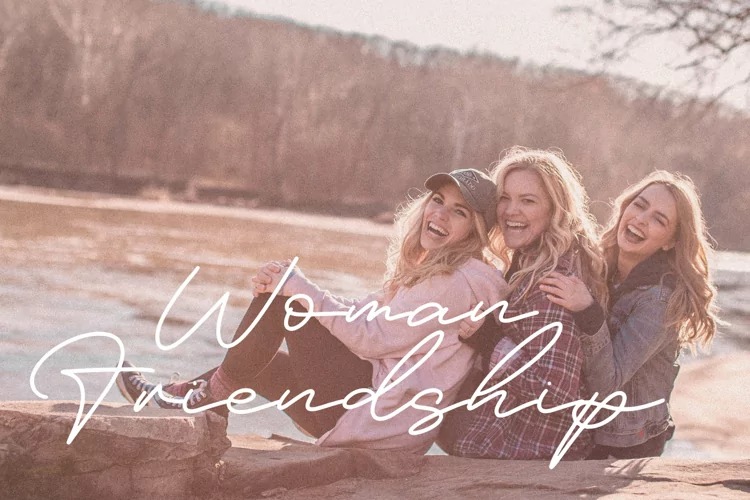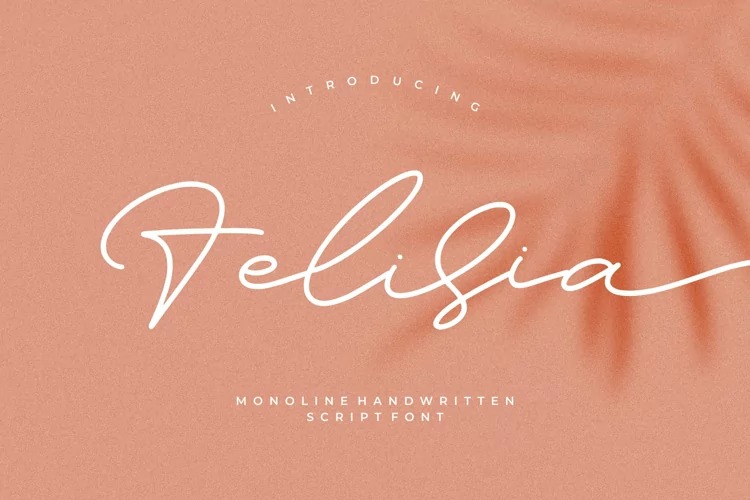
Felisia Font
Felisia Script Font
This is a stylish and delicate script typeface package by Integritype Studio. It has a clean, thin and smooth vibe and it will be a hit for any design that you want to add it to. Suitable for any projects such as: logos, branding projects, homeware designs, product packaging, mugs, quotes, posters, shopping bags, t-shirts, book covers, name card, invitation cards, greeting cards, label, photography, watermark, special events, and all your other luxury projects that need a premium signature taste.